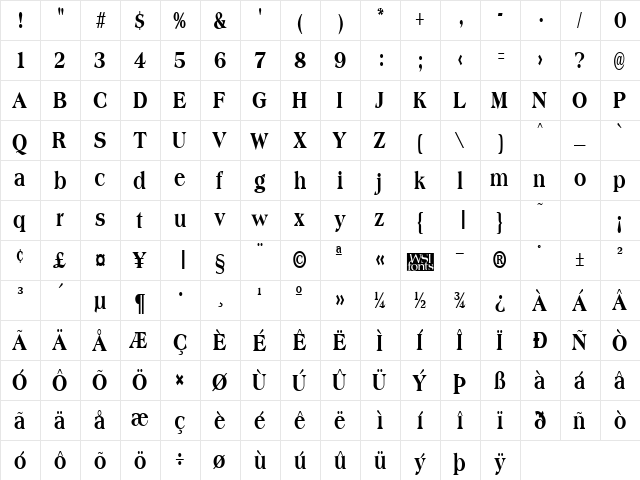
AmphionCondensedExtrabold Regular Font Preview
Design Context for AmphionCondensedExtrabold Typeface
AmphionCondensedExtrabold offers clean, dependable letterforms without strong stylistic allegiance, making it a practical choice for designers who need flexibility. Its bold stroke weight gives it real presence on the page. The condensed width makes it efficient for tight spaces without sacrificing legibility.